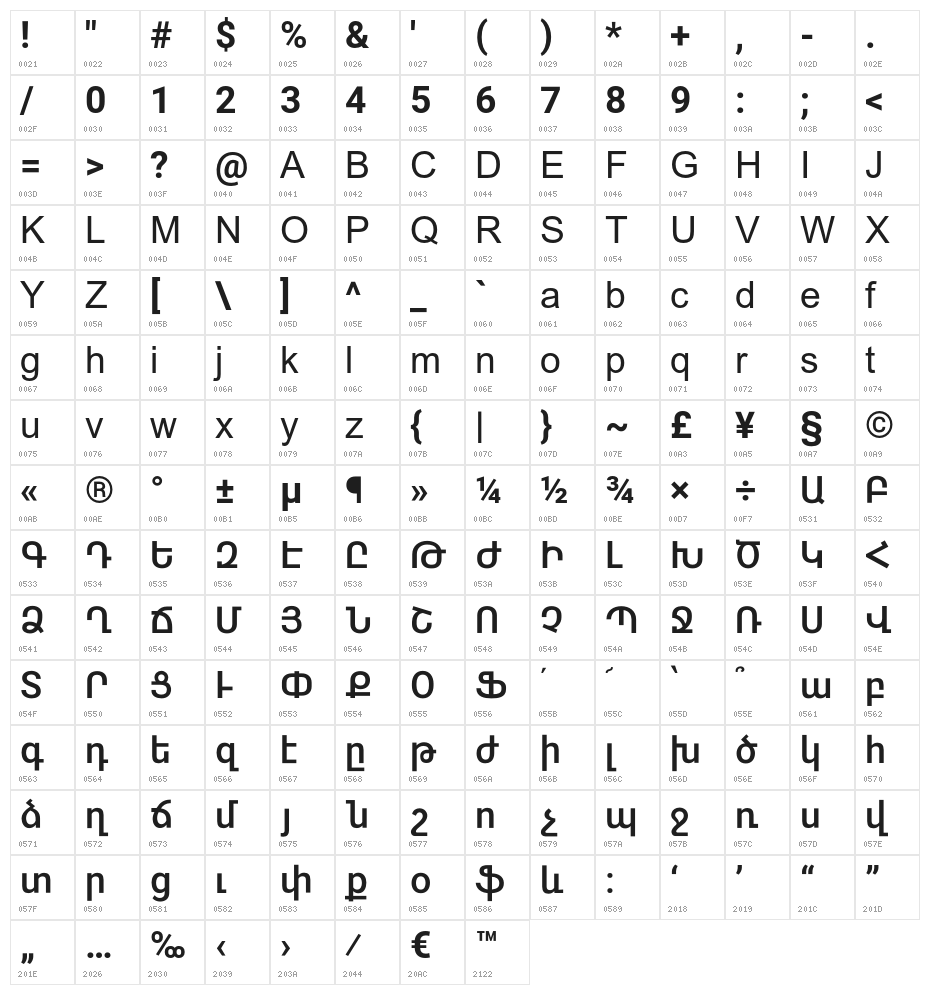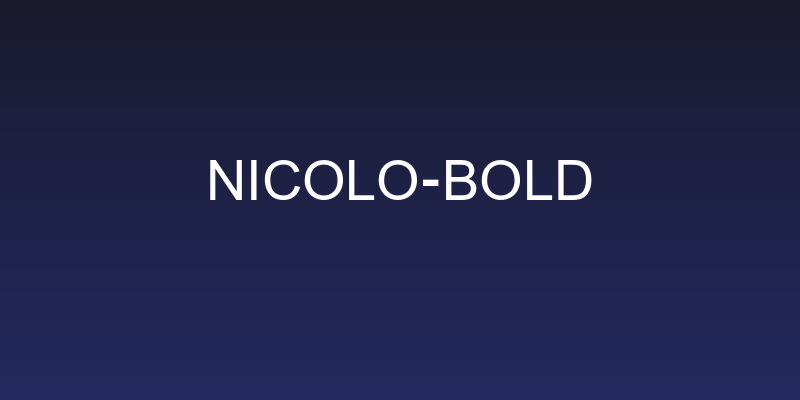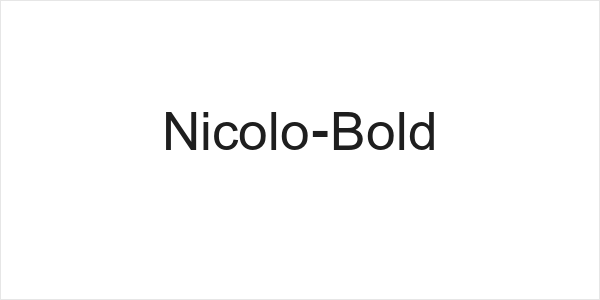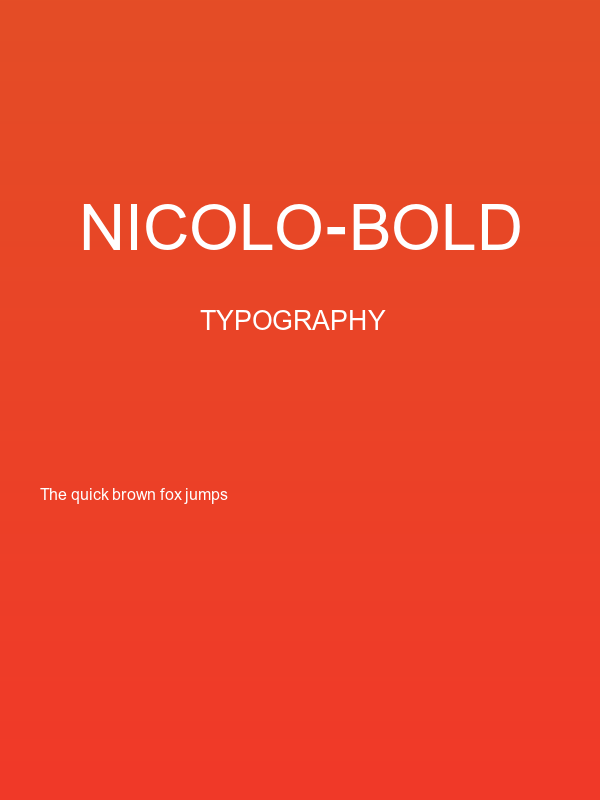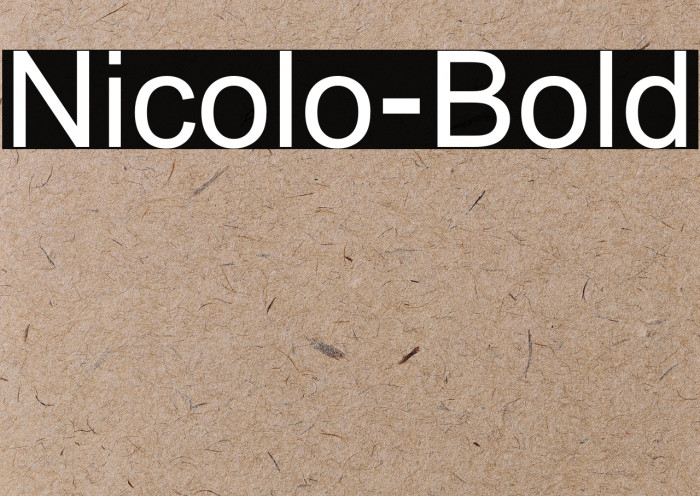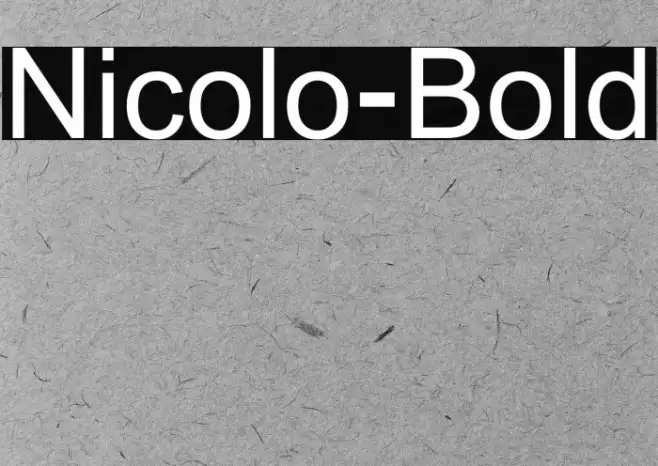
Nicolo-Bold Font
Nicolo-Bold Description
This font features a clean and modern sans-serif design with a bold weight, making it highly legible and impactful. The characters are evenly spaced with a normal width, providing a balanced and harmonious appearance. The uppercase and lowercase letters are well-proportioned, and the numerals are clear and distinct. Special characters are included, maintaining the font's cohesive style. The overall look is sleek and professional, suitable for a variety of design applications.
| Proposed Projects | Ideal for branding, advertising, headlines, and digital content where clarity and impact are essential. |